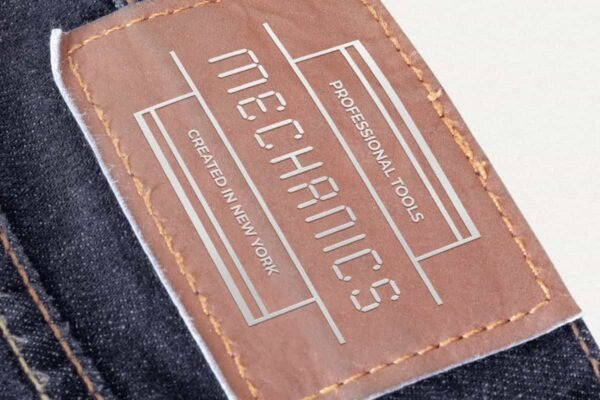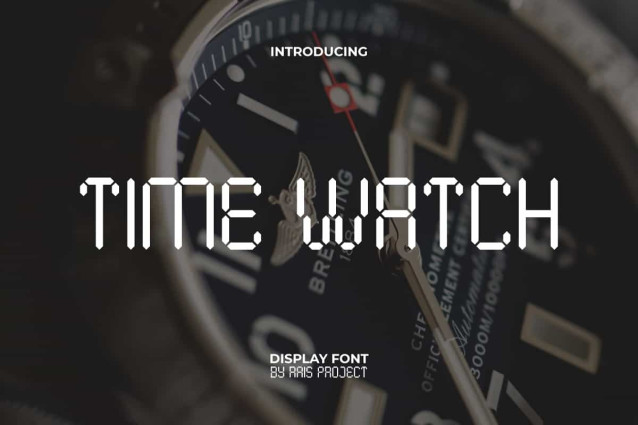
Time Watch Font
Time Watch Font is a timeless analog clock font with a classic stylish retro style. The appearance of this font is inspired by the typical and easy to read digital watch style. It will be good for any designs, such as label, poster, custom design, advertisement, brand image, invitation, marketing material, product packaging, quotes, signage, website page, and more!
Time Watch Font includes a full set of ALL CAPS for Uppercase and Lowercase Letters, Numerals, and large range of Punctuation. This modern font can be paired with other font types so it’s more versatile that will be suitable for various industries, such as sports, automotive, barber shop, cafe, event or festival, fashion, game, photography, printing, publishing, etc.